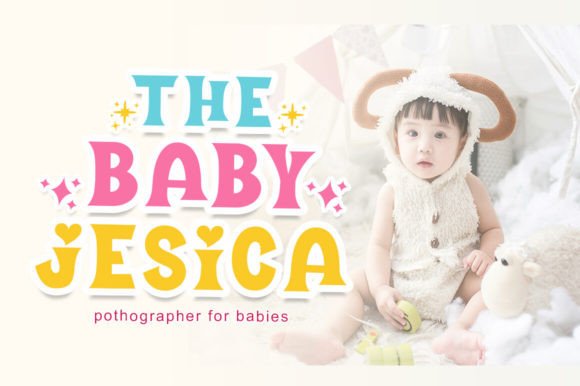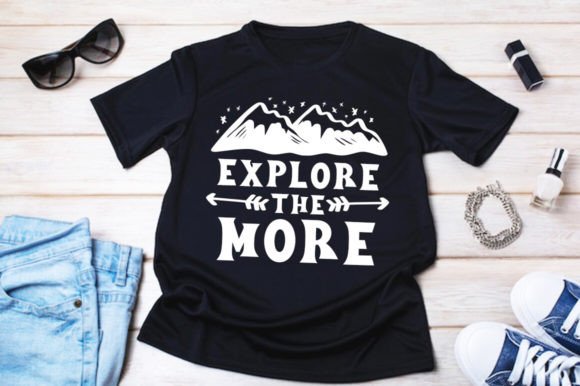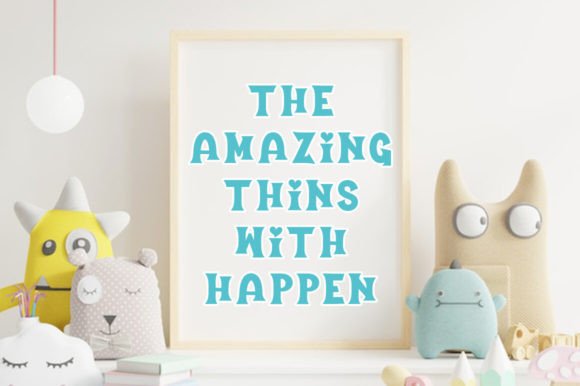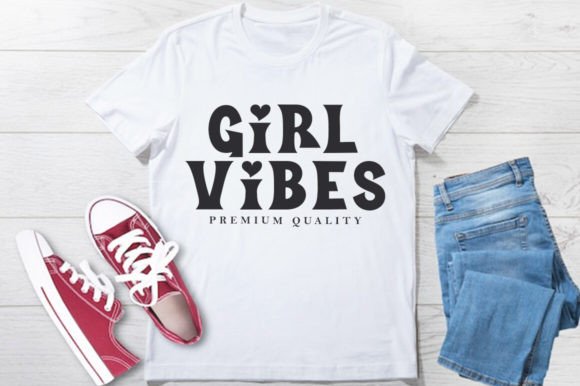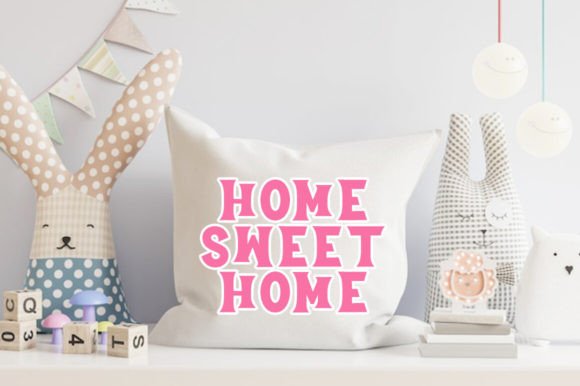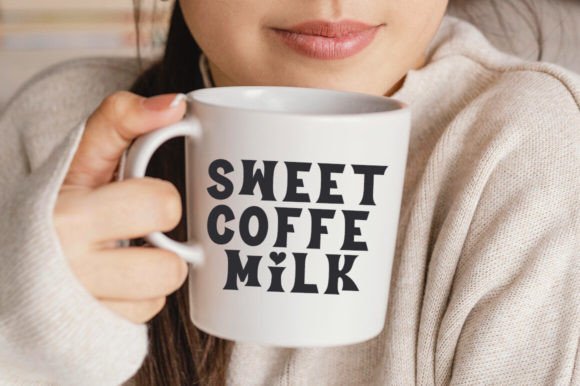
Introducing Girl Vibes Font: The Ultimate Addition to Your Design Arsenal
Are you tired of using the same old fonts in your designs? Look no further! Girl Vibes Font is here to revolutionize your creative projects with its cute and charming display font. This whimsical and quirky font is sure to brighten up any design, making it a must-have for designers and crafters alike.
What Makes Girl Vibes Font So Special?
Girl Vibes Font is more than just a pretty face. Its unique and playful design makes it perfect for a wide range of projects, from social media graphics and posters to invitations and crafts. The font’s charm lies in its ability to add a touch of personality to any design, making it stand out from the crowd.
Key Features of Girl Vibes Font
- Cute and Charming Design: Girl Vibes Font boasts a delightful design that’s sure to capture the hearts of your audience.
- Whimsical and Quirky: This font’s playful nature makes it perfect for designs that require a touch of fun and personality.
- PUA Coded: With PUA coding, you can easily access all the amazing glyphs and ligatures, giving you endless creative possibilities.
How to Use Girl Vibes Font in Your Designs
Girl Vibes Font is a versatile font that’s perfect for a wide range of projects, including:
- Social Media Graphics: Add a touch of personality to your social media graphics with Girl Vibes Font.
- Posters and Flyers: Create eye-catching posters and flyers with this charming font.
- Invitations and Cards: Add a touch of whimsy to your invitations and cards with Girl Vibes Font.
- Crafts and DIY Projects: Use Girl Vibes Font to add a personal touch to your crafts and DIY projects.